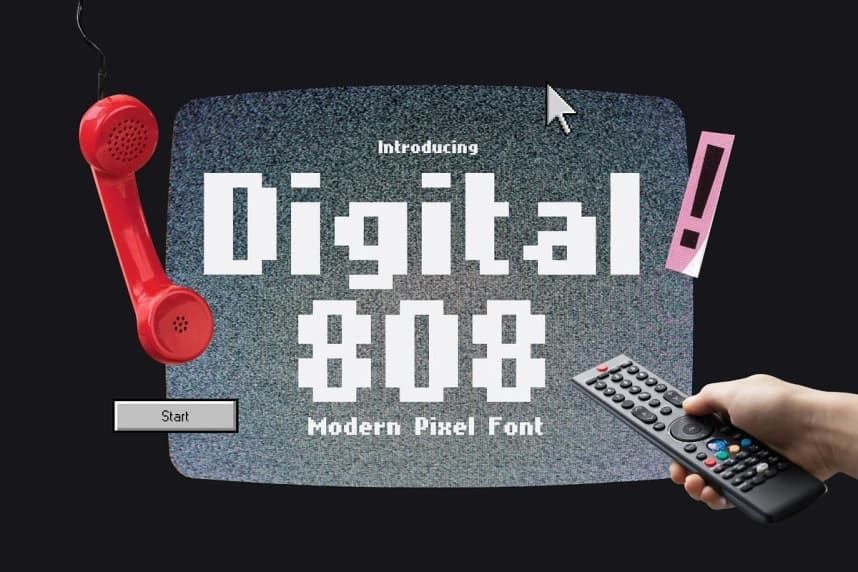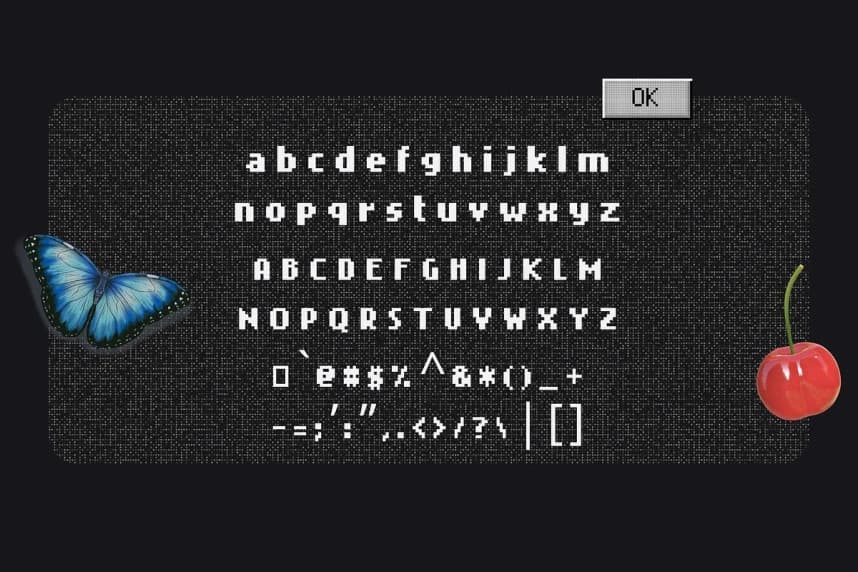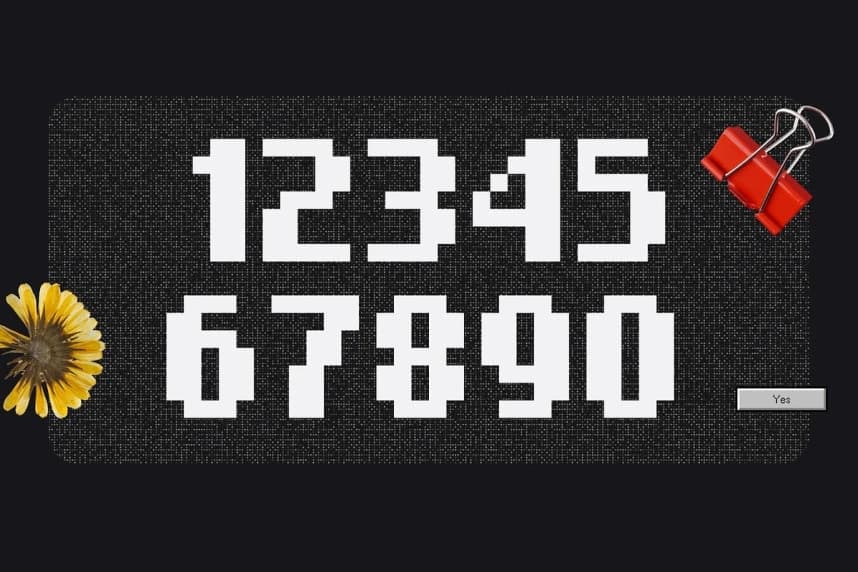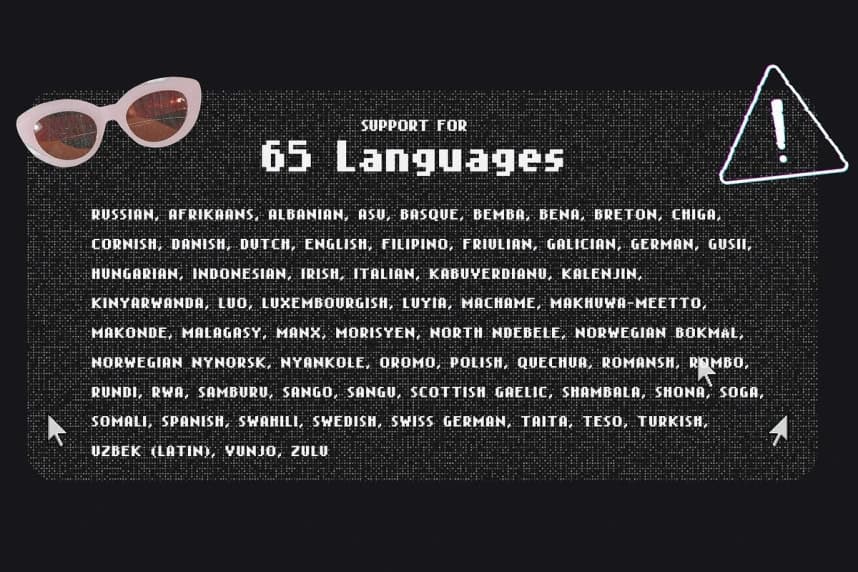
Digital 808 Font
Digital 808 Font is a modern pixel typeface built for creators who love retro aesthetics with a clean, contemporary twist. Crafted with precision, this font features 249 glyphs and supports 63 languages, making it a versatile choice for global design projects.